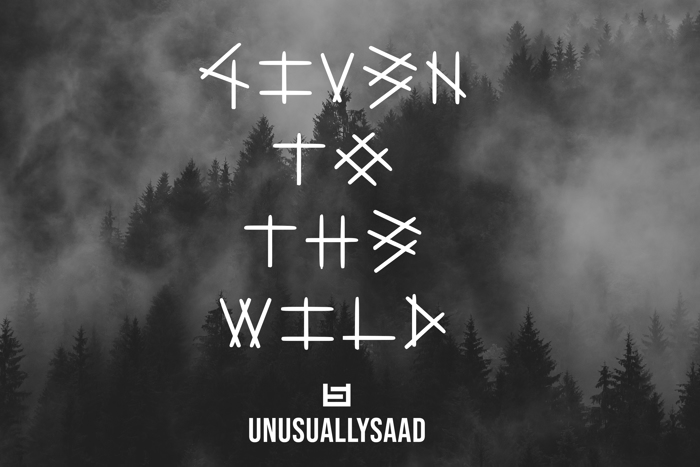
Given To The Wild Font
Given to the wild is an embodiment of a childhood endeavor.
When I was a kid, I used to scribble text all the time.
This font style came to me naturally, without any influence.